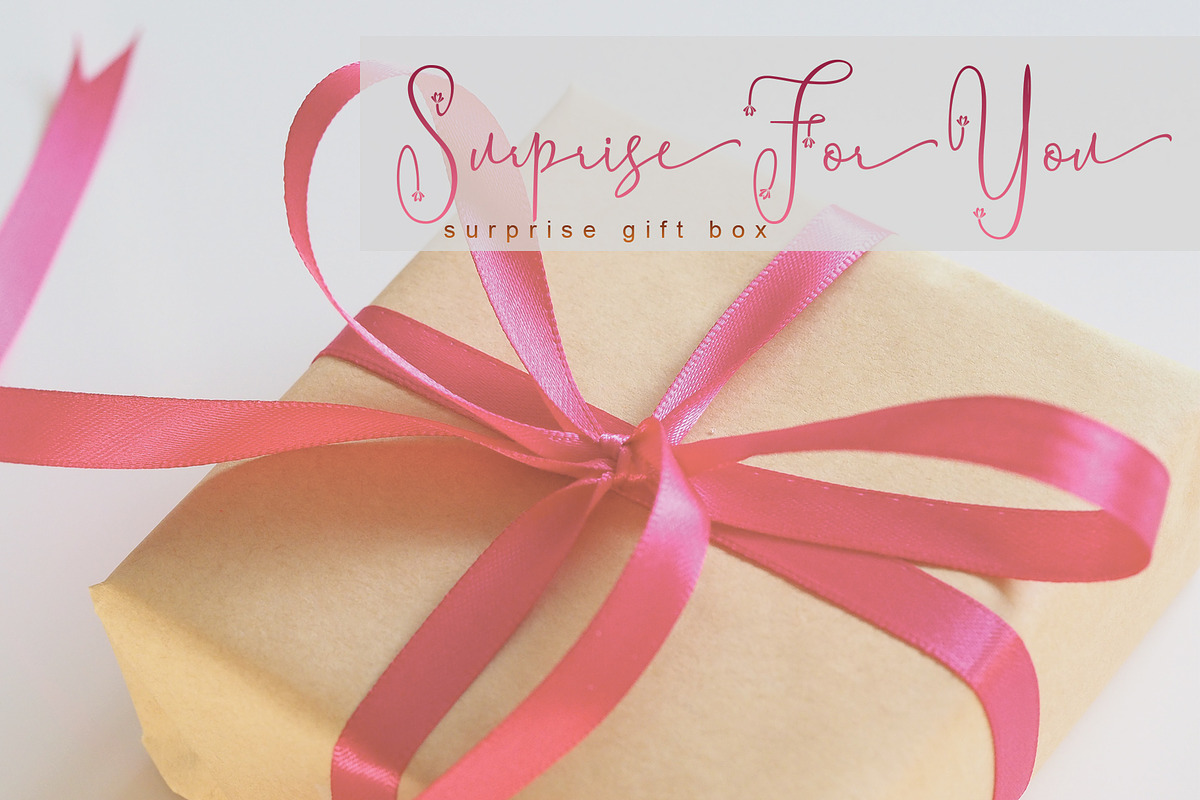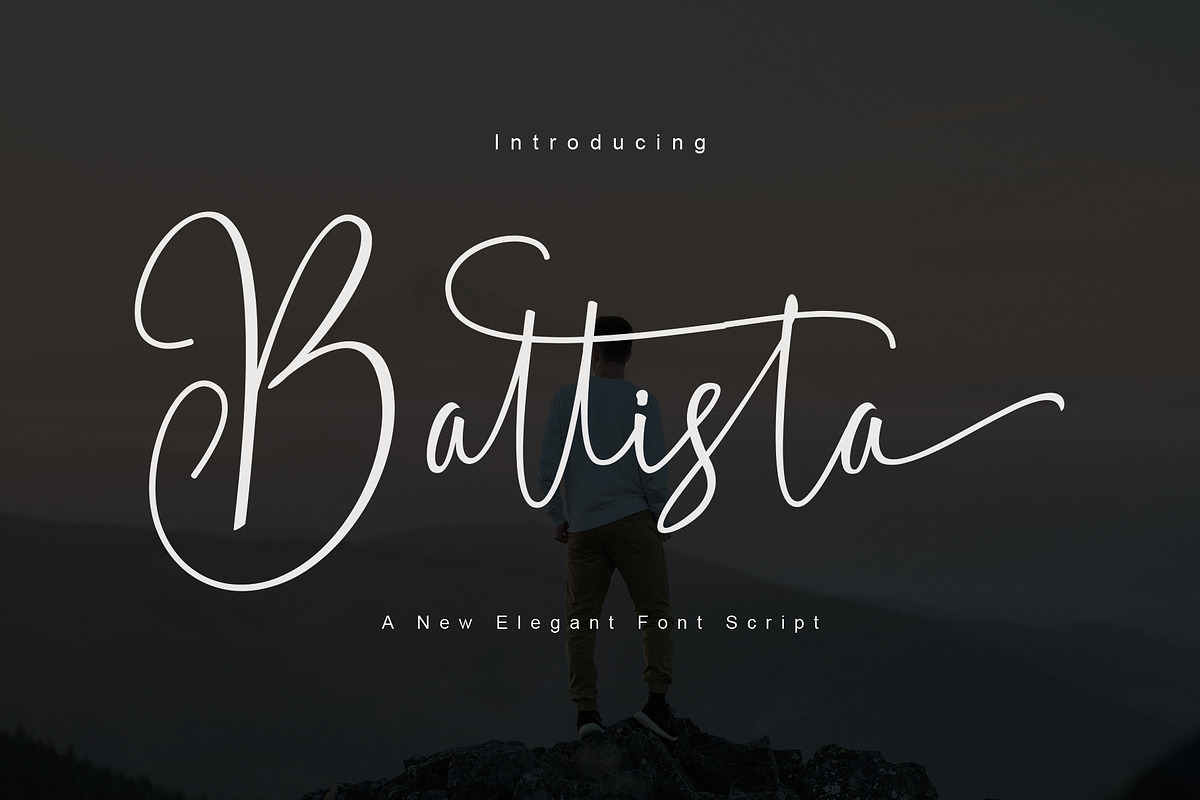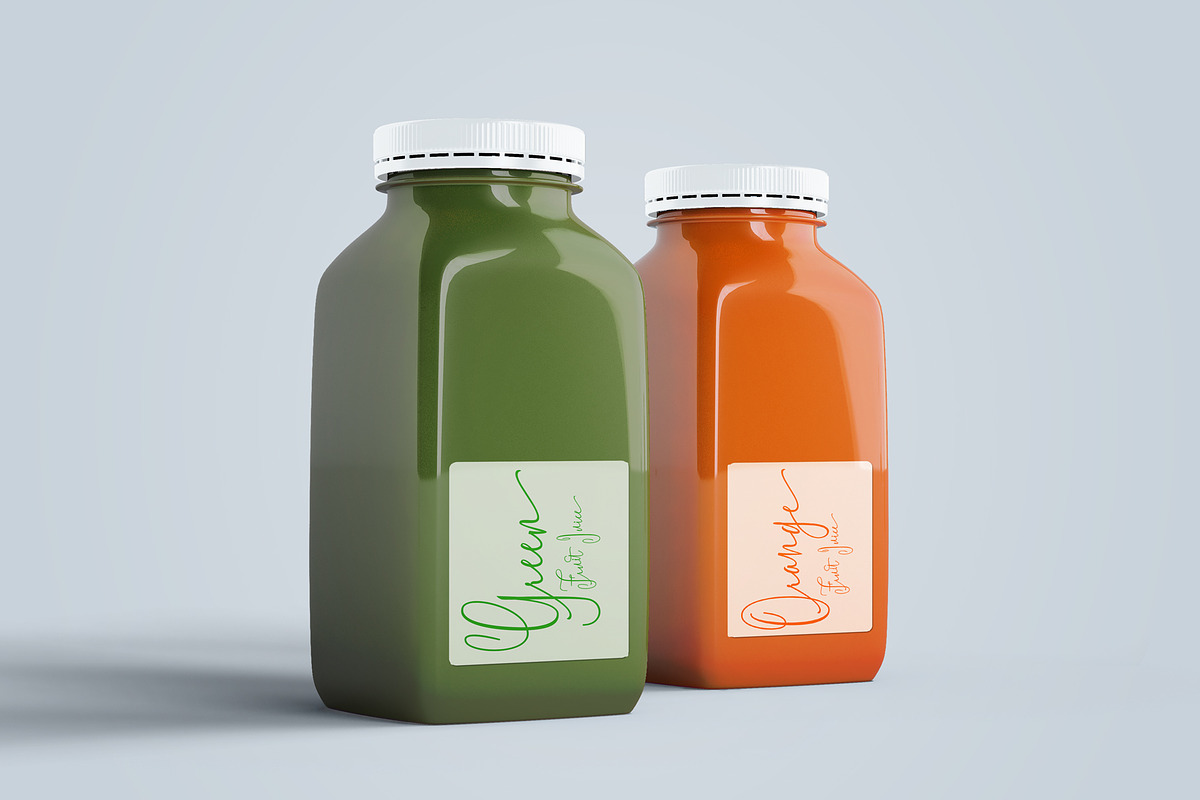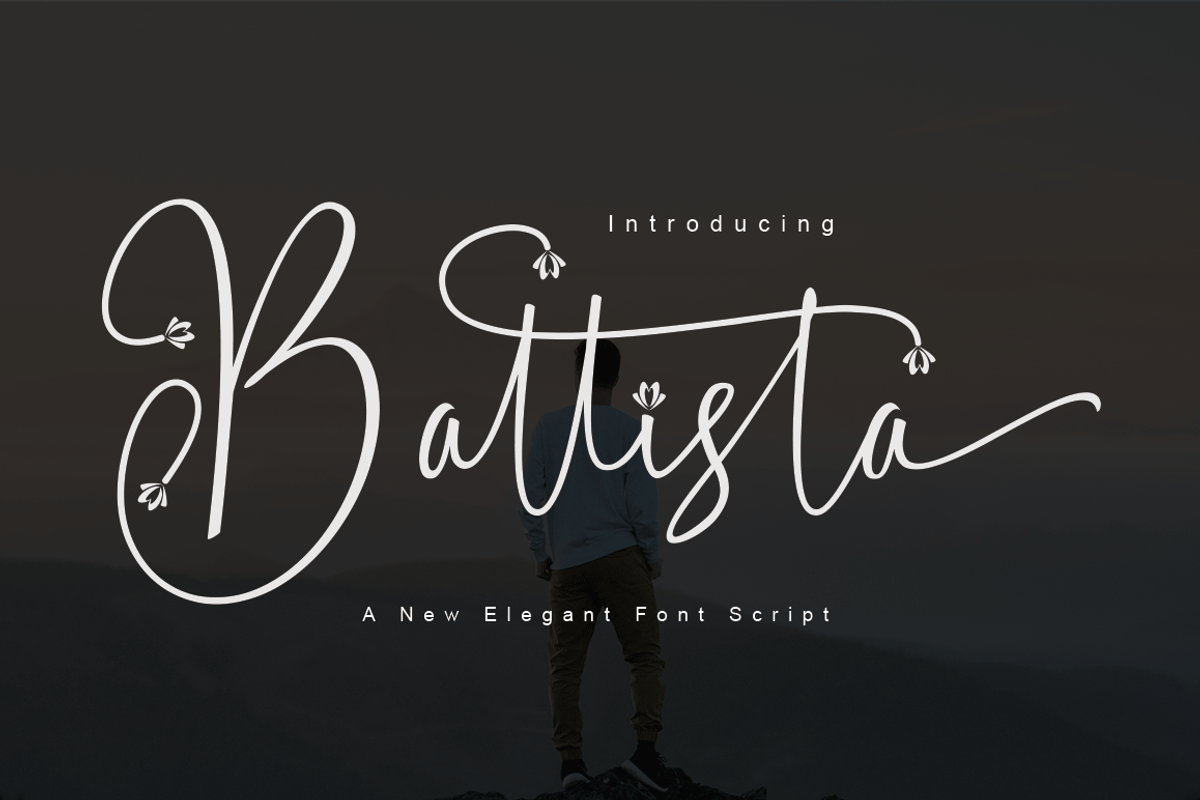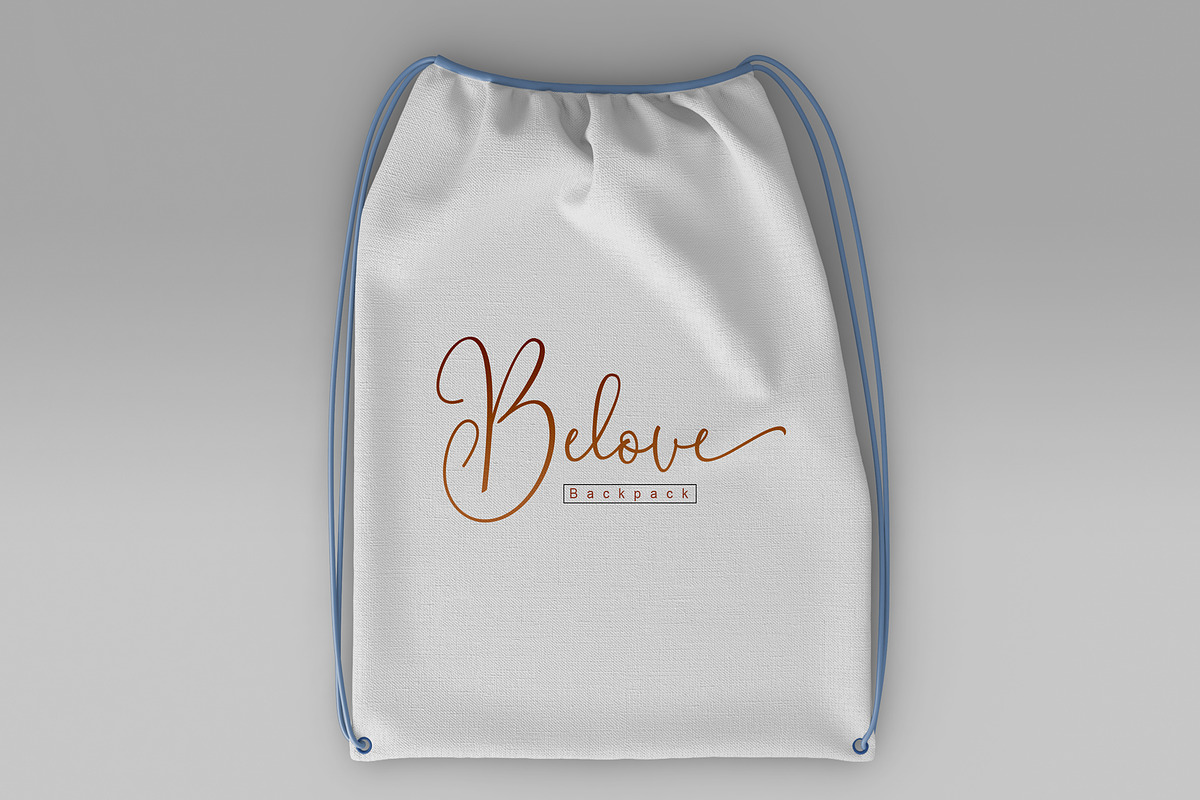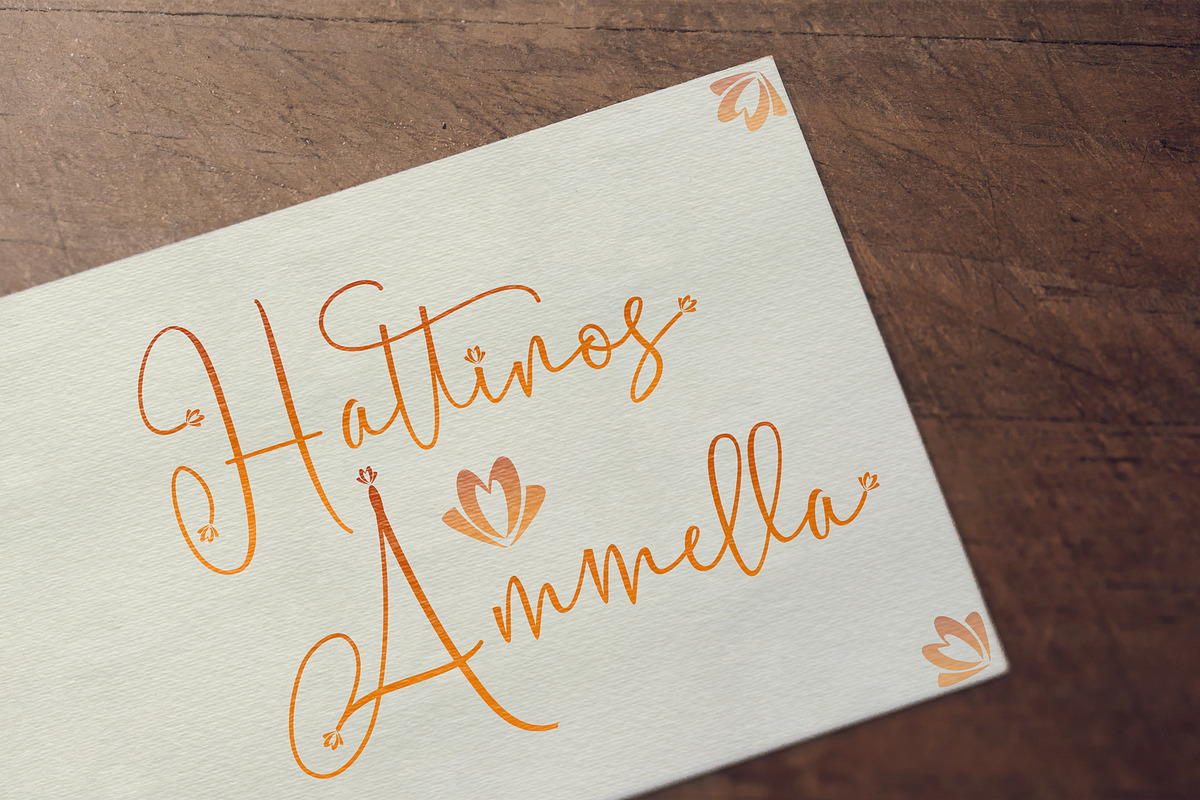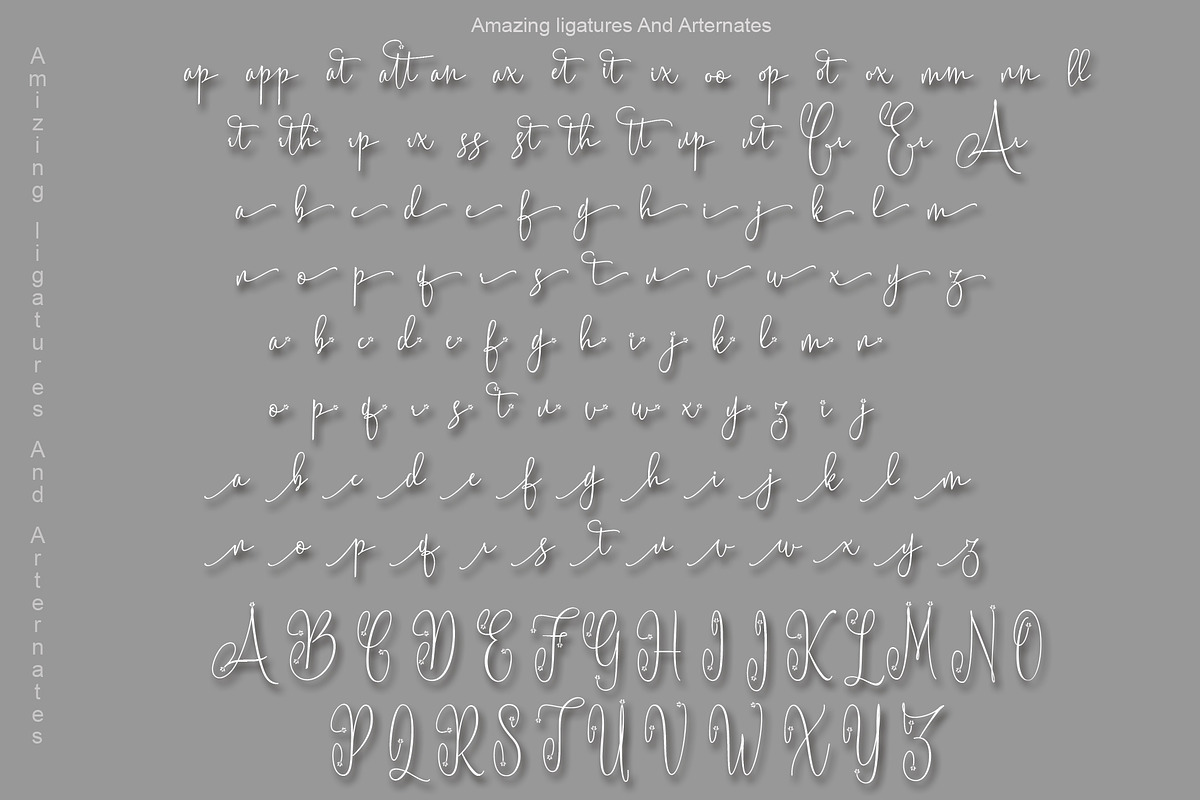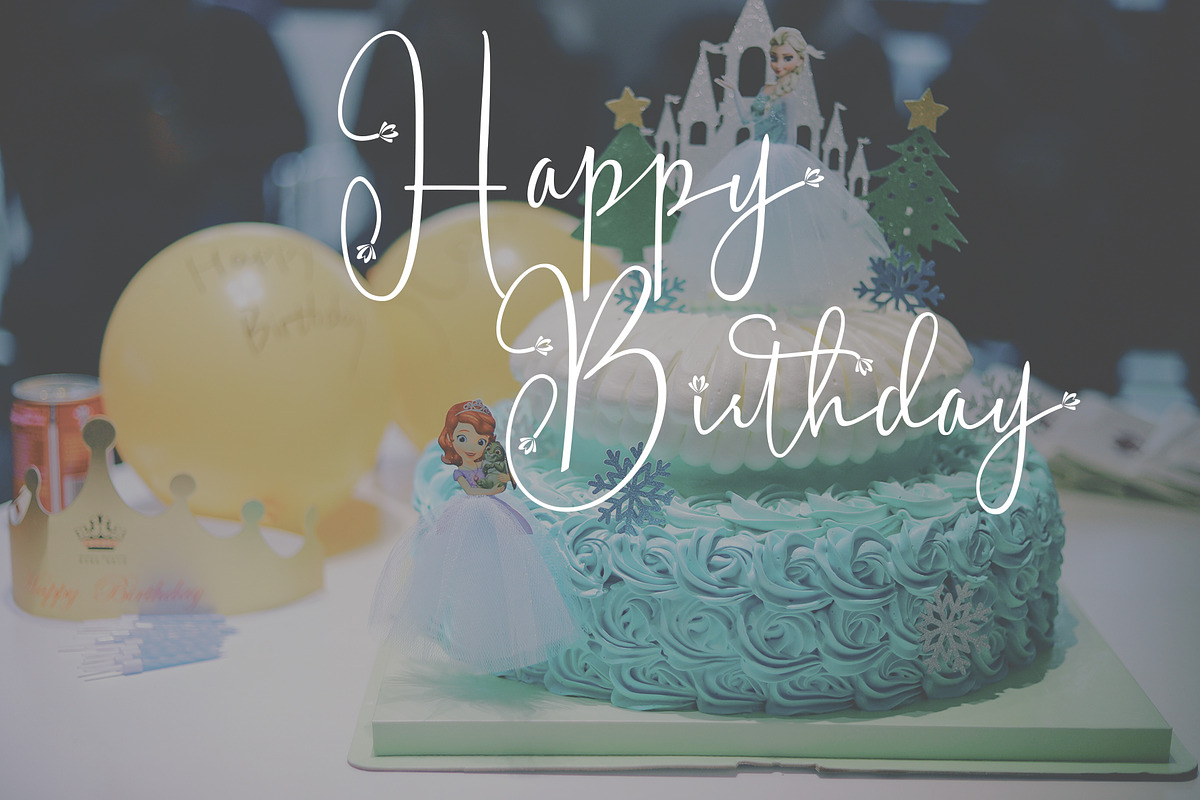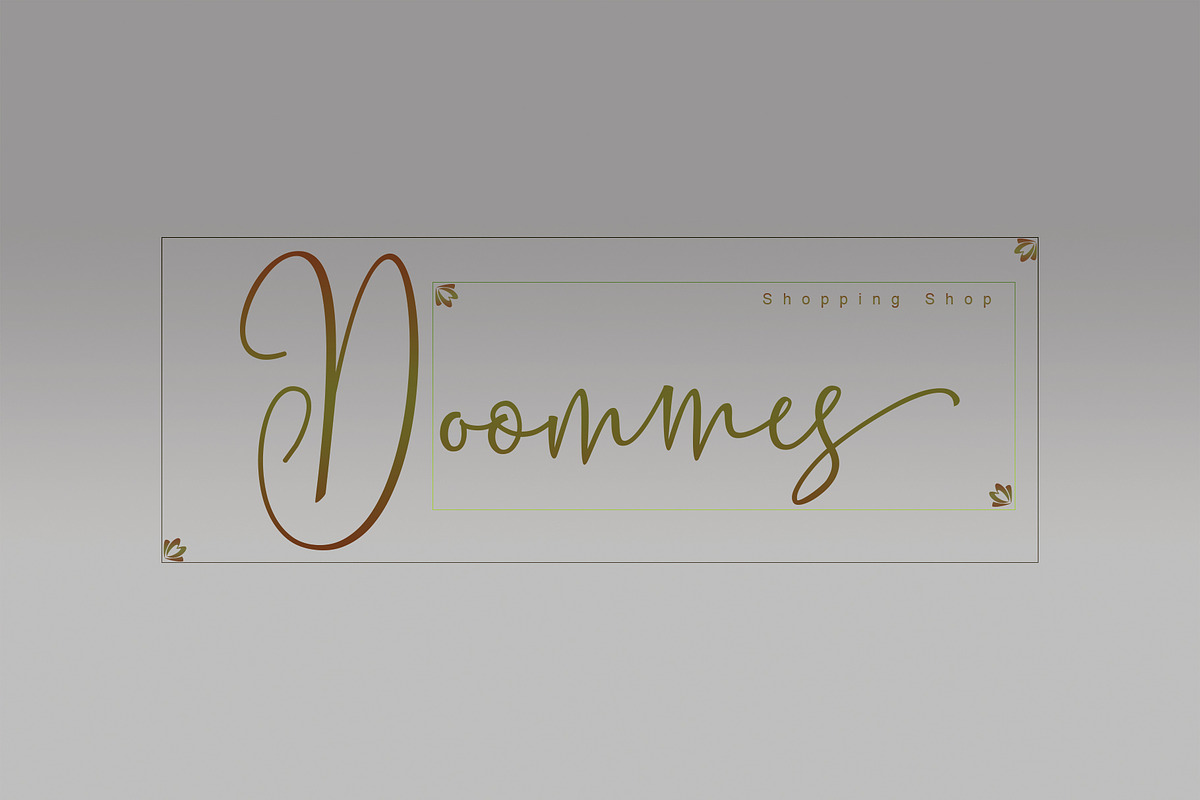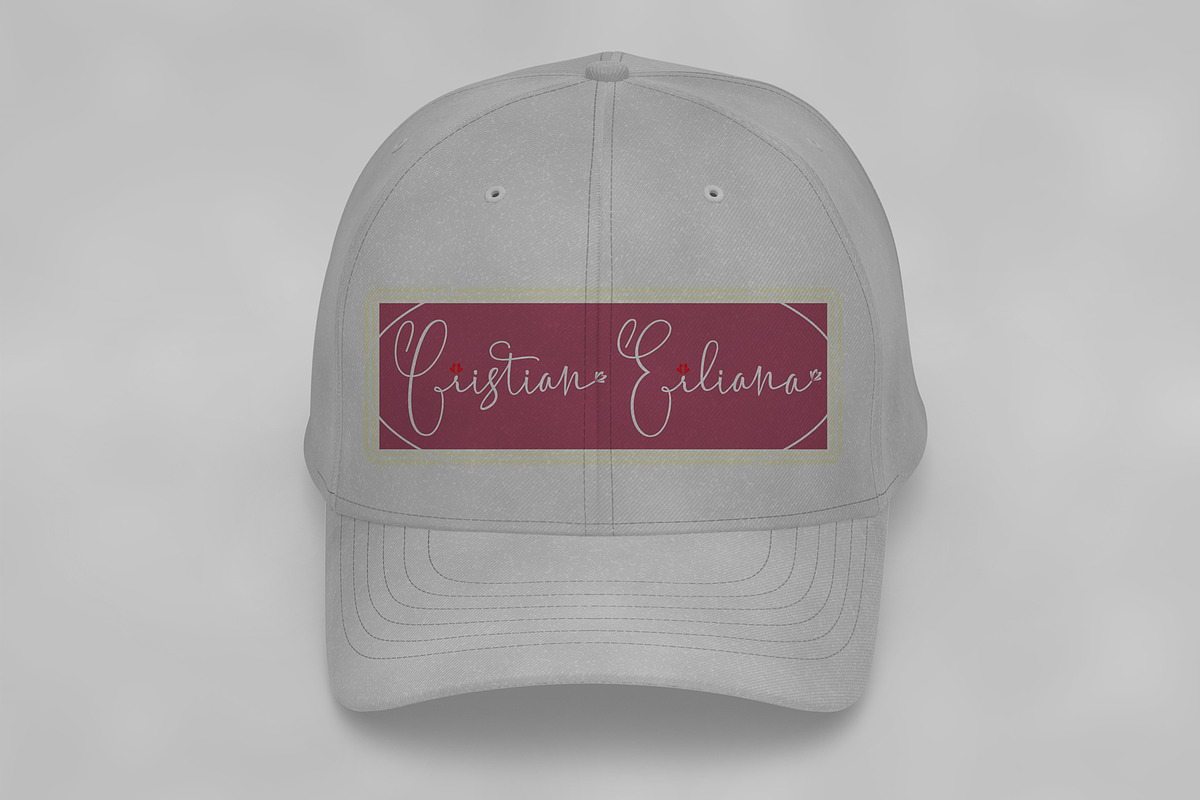
Battista
Introducing:
Battista a font work that is purely handwritten, has its own characteristics with the style of script font. this is perfect for invitations, signatures, blogs, social media, business cards, product brands.
Battista has Stylistic standard, Stylistic Alternate, Stylistic Sets and ligatures. and includes uppercase and lowercase letters, numbers and punctuation marks.
The Features of this fonts is;
- Standart ligatures
- Contextual Alternates
- Stylistic sets